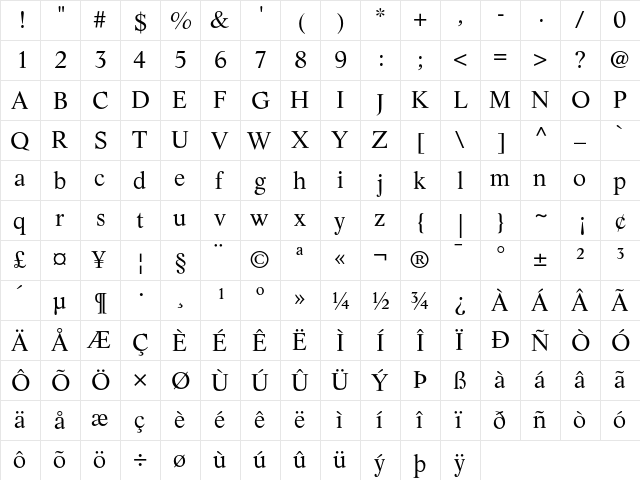
Life Roman
Design Context for Life Typeface
Life takes a measured approach to typography — its balanced proportions and neutral character make it a reliable workhorse for both digital and print work.